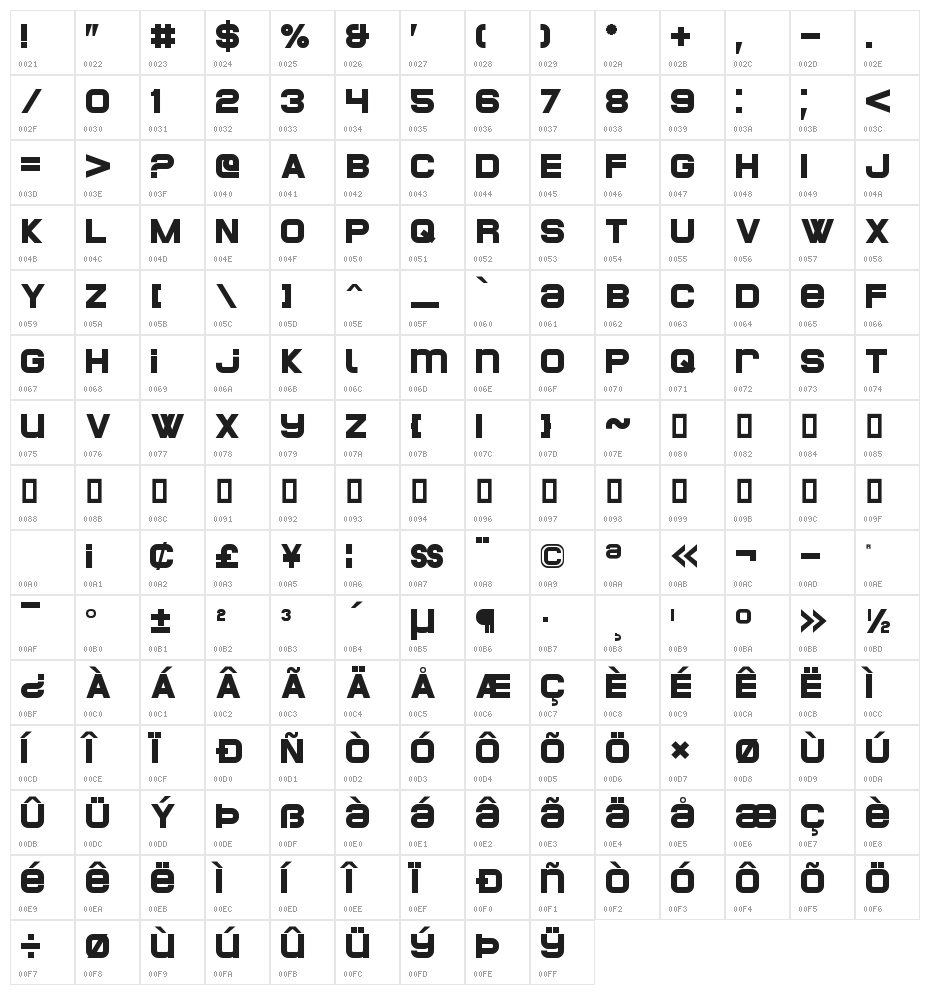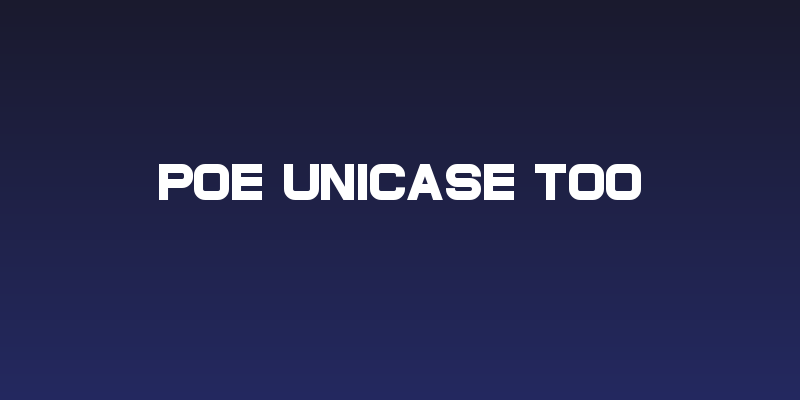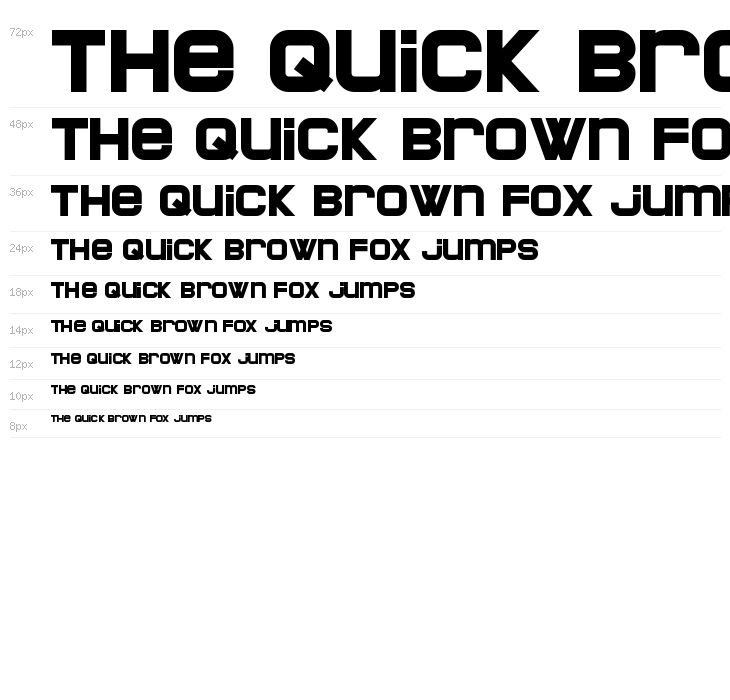
POE Unicase Too Font
POE Unicase Too Description
This font features a bold and geometric style with a strong presence. The characters are designed with a consistent thickness, giving it a uniform and modern appearance. The uppercase and lowercase letters share a similar structure, enhancing its unicase design. The numbers and special characters maintain the same boldness, ensuring readability and impact. The font's design is clean and straightforward, making it suitable for various applications where a strong visual statement is needed.